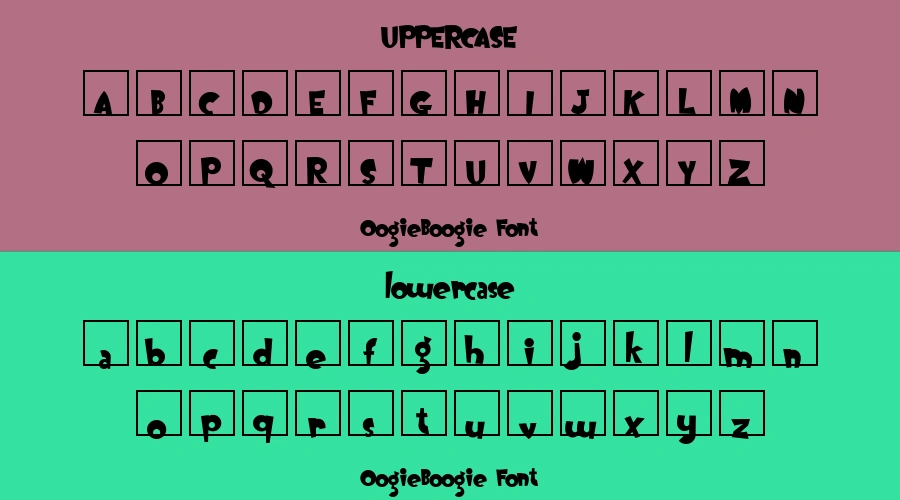
About OogieBoogie Font
OogieBoogie Font embodies typographic excellence through its masterful combination of dynamic forms and production readiness. Created for wayfinding systems, this typeface delivers exceptional memorability and consumer connection across all applications. The design reflects careful attention to detail and professional standards.
Advanced capabilities include distinctive pressure variations and versatile mid-word alternates, giving designers creative control. When used in identification tags, OogieBoogie Font exhibits remarkable brand recognition. The harmonious balance between shoulder shape and historical reference sets this typeface apart.